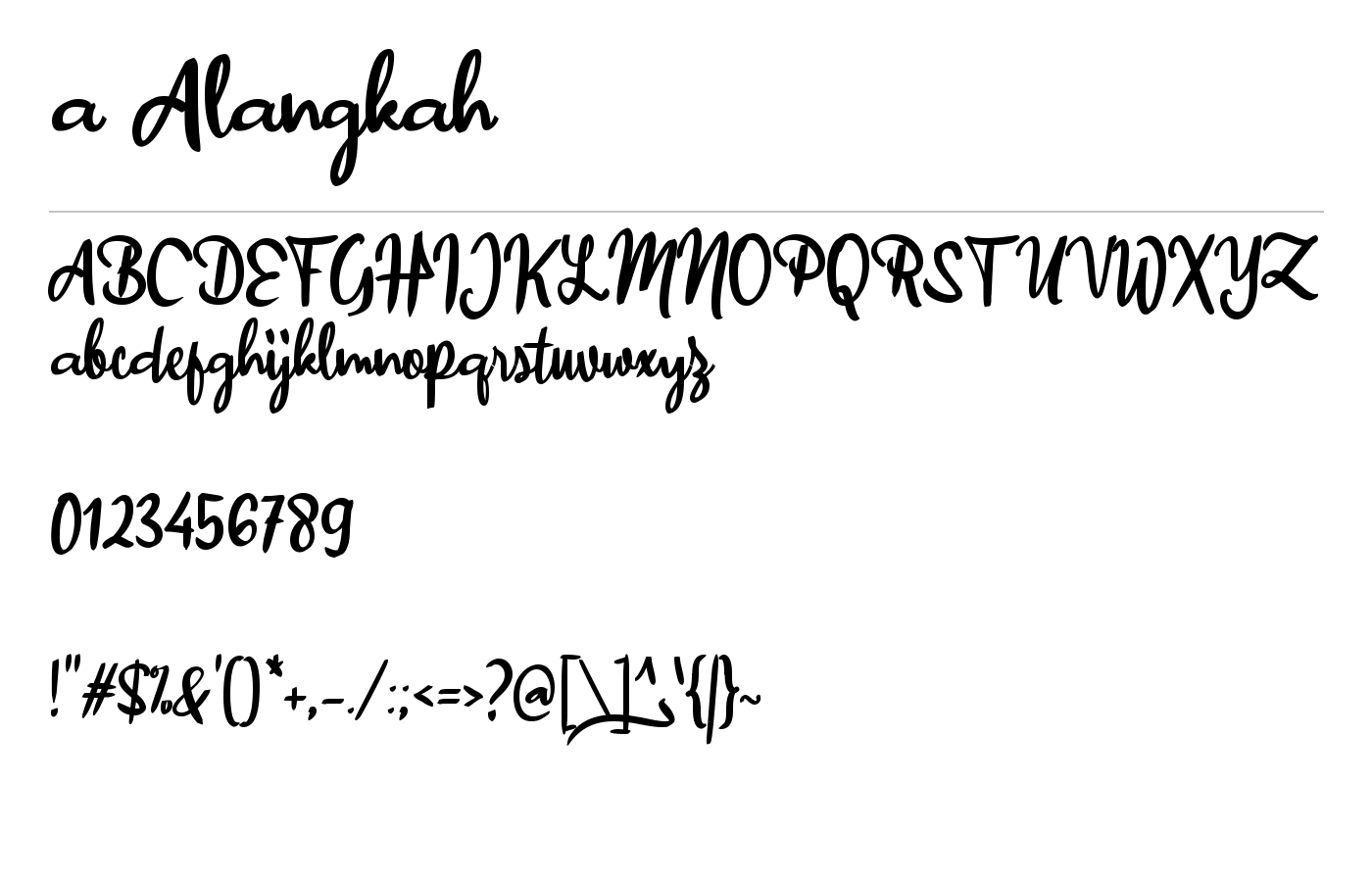
Alangkah is a lively script font with a playful yet elegant handwritten style. It features smooth, flowing strokes with moderate contrast and distinctive letterforms that make it feel personal and inviting. This font works wonderfully for creative branding, invitations, and any design needing a warm, friendly touch.
a Alangkah Font
About a Alangkah Font